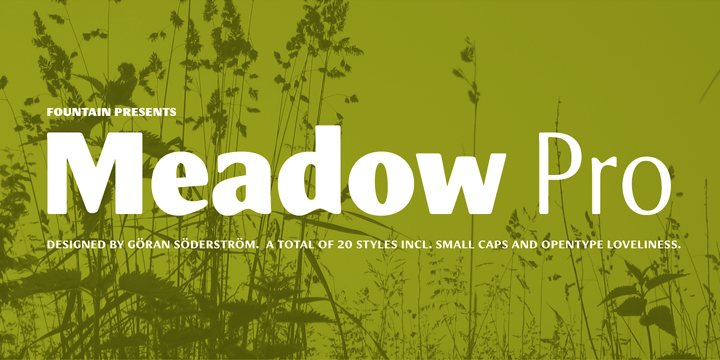
Meadow is a serious attempt in doing a neutral typeface family that can be used as a strong functional typeface for many different needs. At the same time, Meadow has a true personality, which I think new typefaces should have.
Influences can be found in work by Hermann Zapf, as this style of drawing letters comes naturally to me. I must also confess that I've always had a love/hate relationship with his typeface – Optima.
Meadow is the more contemporary alternative with a fresh expression and a twist of something new. What I’m talking about is the movement in the junctions between the stem and stroke which is by purpose shifted away from the stem. This does not really mimic what a broadpen would do, but it gives the typeface some unexpected details. More…
After making the Meadow family I felt the need to do a slightly more condensed version of the typeface. A version that saves a little space but has the same character. Meadow Condensed works well on its own or as a family member. Character sets are identical, finish and quality is the same, it’s just narrower to make room for more words.
Meadow is well suited for strong headlines all the way down to small size settings.